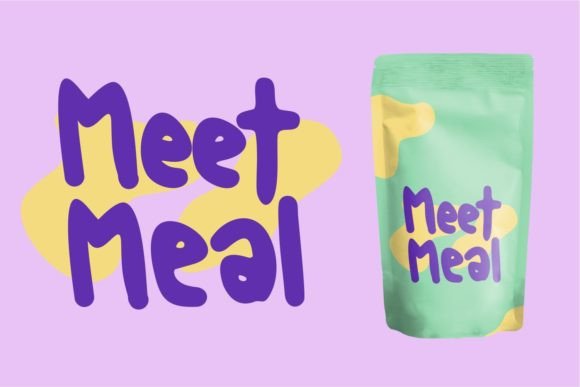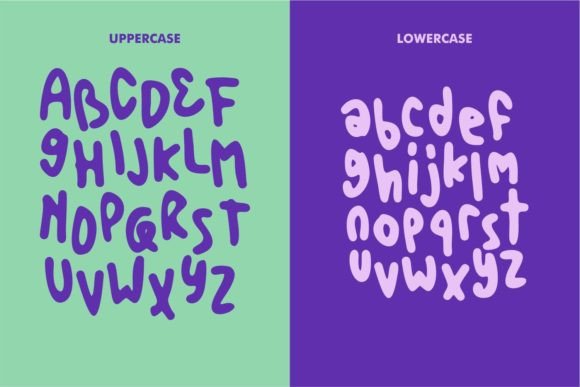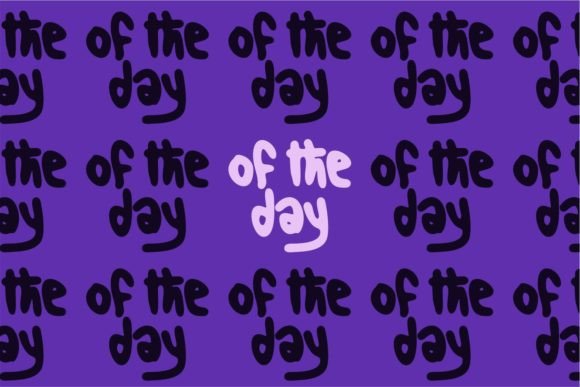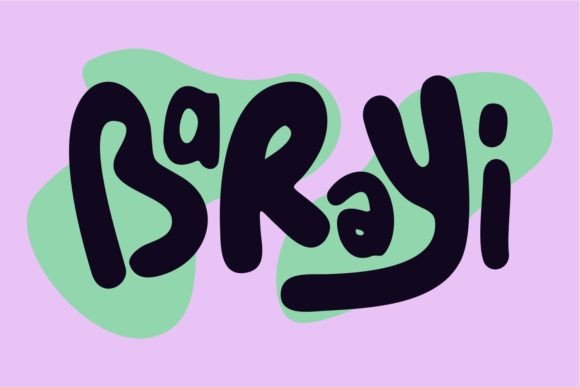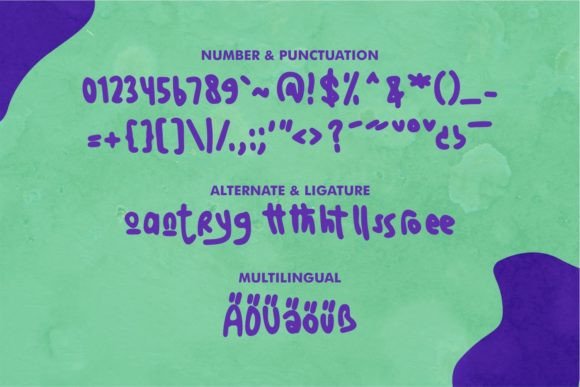
Introducing Bayar Font: The Ultimate Bold and Quirky Handwritten Font
Are you tired of using the same old fonts for your designs? Look no further! Bayar Font is here to revolutionize your creative projects with its bold and quirky handwritten style. This cool font is perfect for designers and crafters who want to add a personal touch to their work. In this article, we’ll dive into the features and benefits of Bayar Font, and explore how it can elevate your designs to the next level.
What Makes Bayar Font So Special?
Bayar Font is a bold and quirky handwritten font that boasts a unique and eye-catching style. Its cool and casual vibe makes it perfect for a wide range of design projects, from invitations and greeting cards to branding materials, business cards, quotes, posters, and more! The font’s distinctive character is sure to grab attention and leave a lasting impression on your audience.
Key Features of Bayar Font
- Bold and Quirky Style: Bayar Font’s bold and quirky style sets it apart from other fonts. Its unique character is perfect for designs that require a bit of personality.
- Handwritten with Love: The font’s handwritten style gives it a personal and human touch, making it perfect for designs that require a bit of warmth and character.
- Cool and Casual Vibe: Bayar Font’s cool and casual vibe makes it perfect for designs that require a laid-back and relaxed feel.
- Highly Versatile: The font is suitable for a wide range of design projects, from invitations and greeting cards to branding materials, business cards, quotes, posters, and more!
How to Use Bayar Font in Your Designs
Bayar Font is incredibly easy to use and can be incorporated into your designs in a variety of ways. Here are a few ideas to get you started:
- Invitations and Greeting Cards: Add a personal touch to your invitations and greeting cards with Bayar Font’s bold and quirky style.
- Branding Materials: Use Bayar Font to create eye-catching branding materials, such as logos, brochures, and flyers.
- Business Cards: Stand out from the crowd with Bayar Font’s unique and memorable style on your business cards.
- Quotes and Posters: Add a bit of personality to your quotes and posters with Bayar Font’s cool and casual vibe.
Benefits of Using Bayar Font
So, why should you choose Bayar Font for your designs? Here are just a few benefits of using this amazing font:
- Unique and Eye-Catching: Bayar Font’s bold and quirky style is sure to grab attention and leave a lasting impression on your audience.
- Highly Versatile: The font is suitable for a wide range of design projects, making it a great addition to your font library.
- Easy to Use: Bayar Font is incredibly easy to use and can be incorporated into your designs in a variety of ways.
- Perfect for Designers and Crafters: Bayar Font is perfect for designers and crafters who want to add a personal touch to their work.
In conclusion, Bayar Font is a bold and quirky handwritten font that is perfect for designers and crafters who want to add a personal touch to their work. Its unique and eye-catching style makes it perfect for a wide range of design projects, from invitations and greeting cards to branding materials, business cards, quotes, posters, and more! With its highly versatile and easy-to-use design, Bayar Font is sure to become a staple in your font library.